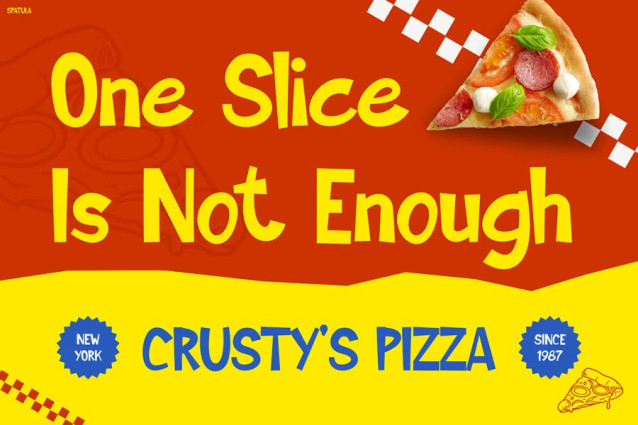
Spatula Font
Spatula Font brings an instant burst of joy with its bold shapes and cheerful personality. The letters feel playful and energetic, thanks to their chunky forms and smooth, hand-drawn touches. Each character looks friendly and expressive, which helps your text stand out right away. Moreover, the lively design gives every word a sense of movement, making your visuals feel more engaging.
This font takes inspiration from cooking moments, doodle art, and colorful classroom themes. Because of that, it carries a warm and imaginative vibe. It works great in bright layouts, fun packaging, or kid-centered branding. In addition, the clear letter structure keeps everything readable, even when used in small sizes. With SPATULA, your text becomes more than words—it becomes a happy experience.
Perfect For Designers, Educators, and Creative Brands
Kids Font SPATULA is not only fun but also very flexible. Designers can use it for kids’ food labels, playful menus, snack packaging, cooking class posters, children’s books, or craft projects. Its friendly look makes any design feel more enjoyable and easy to love.
Educators can also rely on SPATULA for worksheets, classroom boards, reading corners, and activity sheets. Its joyful shapes help kids stay focused and excited. Furthermore, content creators can use it for YouTube thumbnails, recipe videos, intro screens, and family-friendly visuals.
Because the font is bold and expressive, it suits restaurants for kids, snack brands, cooking workshops, toy stores, and any child-focused business. Whether printed or digital, the font keeps your message clear, bright, and full of life.
Bring Your Ideas to Life With SPATULA Today!
Kids Font SPATULA turns simple words into fun moments. Its colorful spirit brings warmth and excitement to any project. So, if you want designs that feel lively and memorable, this is the font for you.